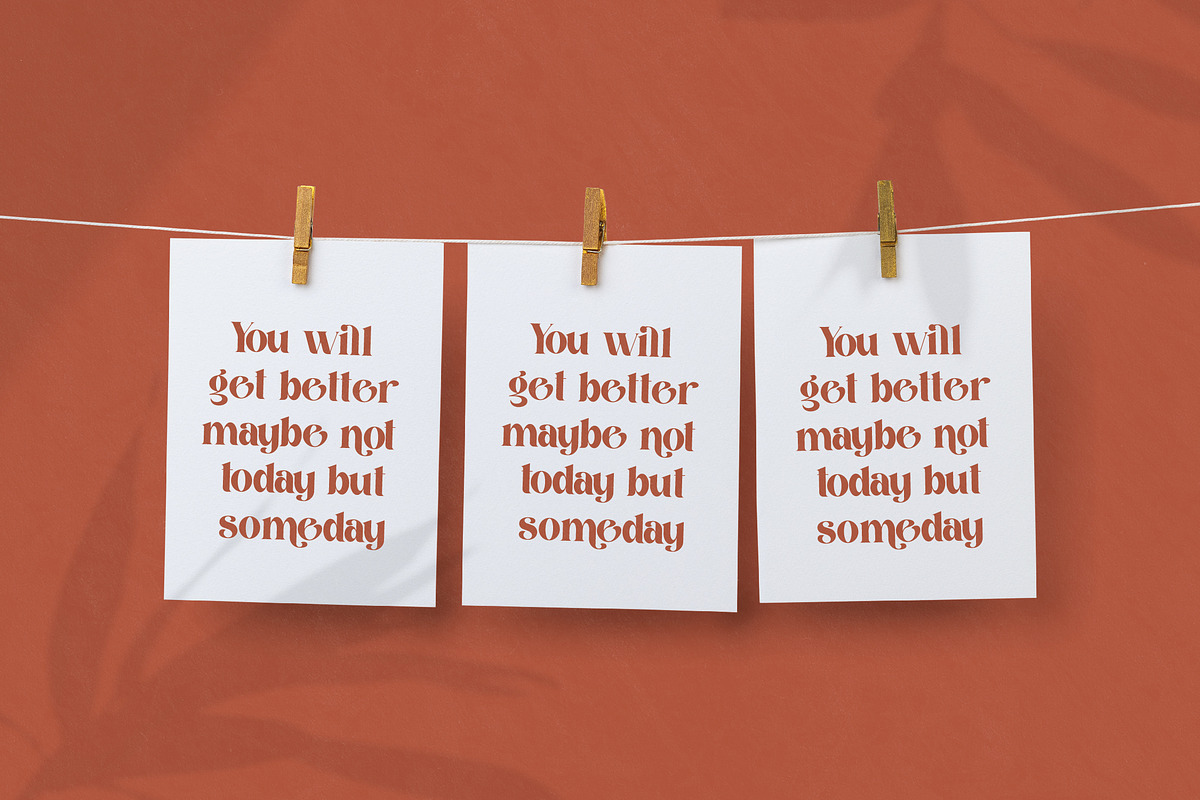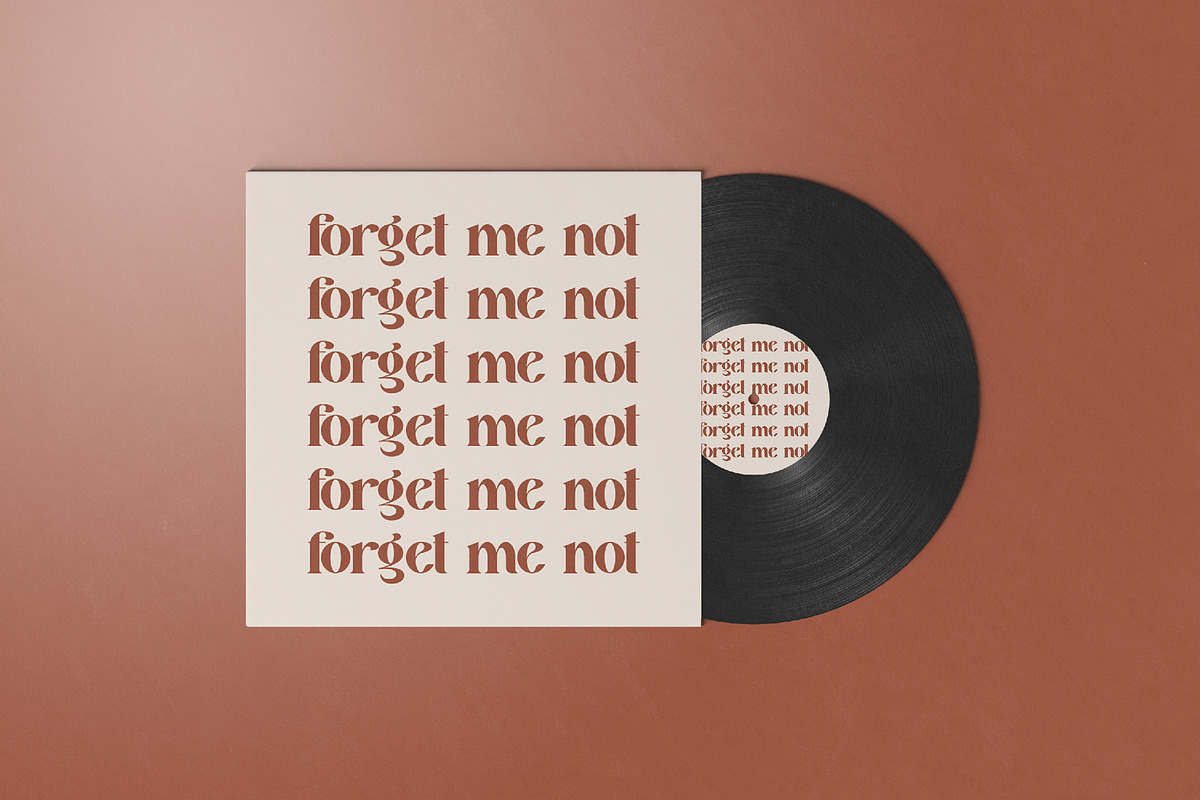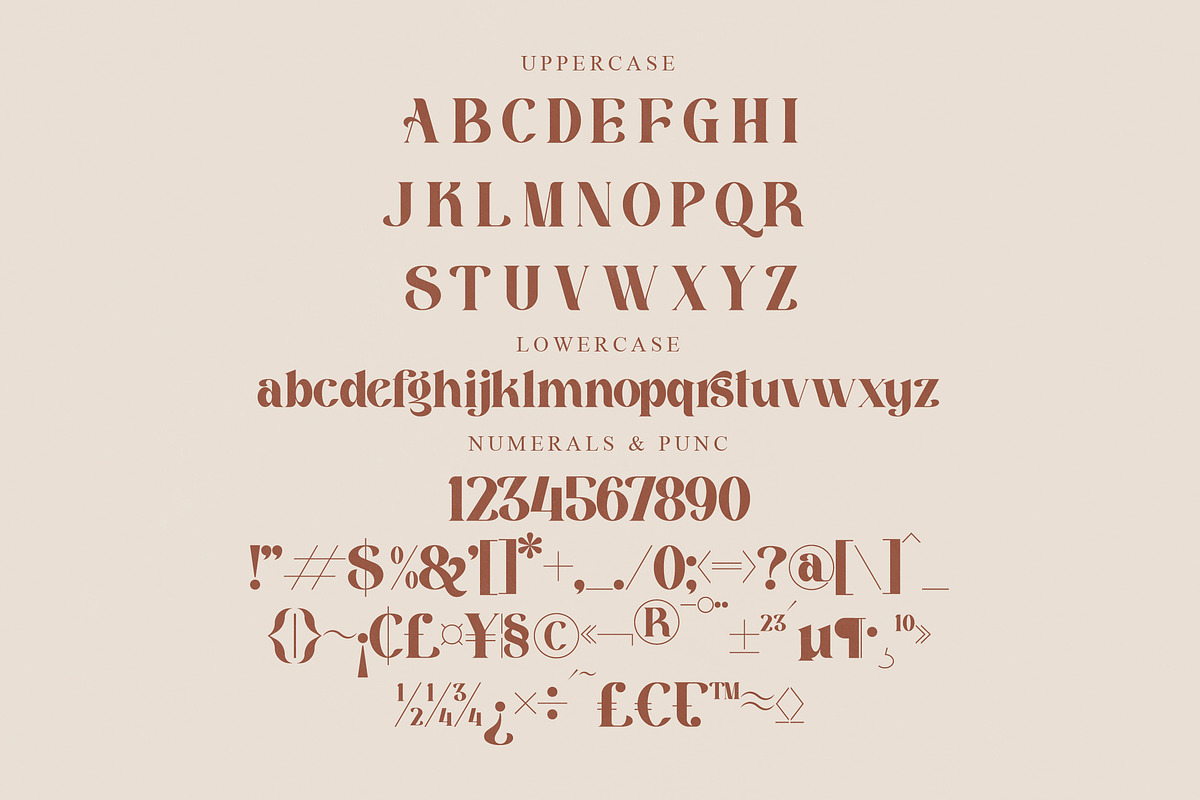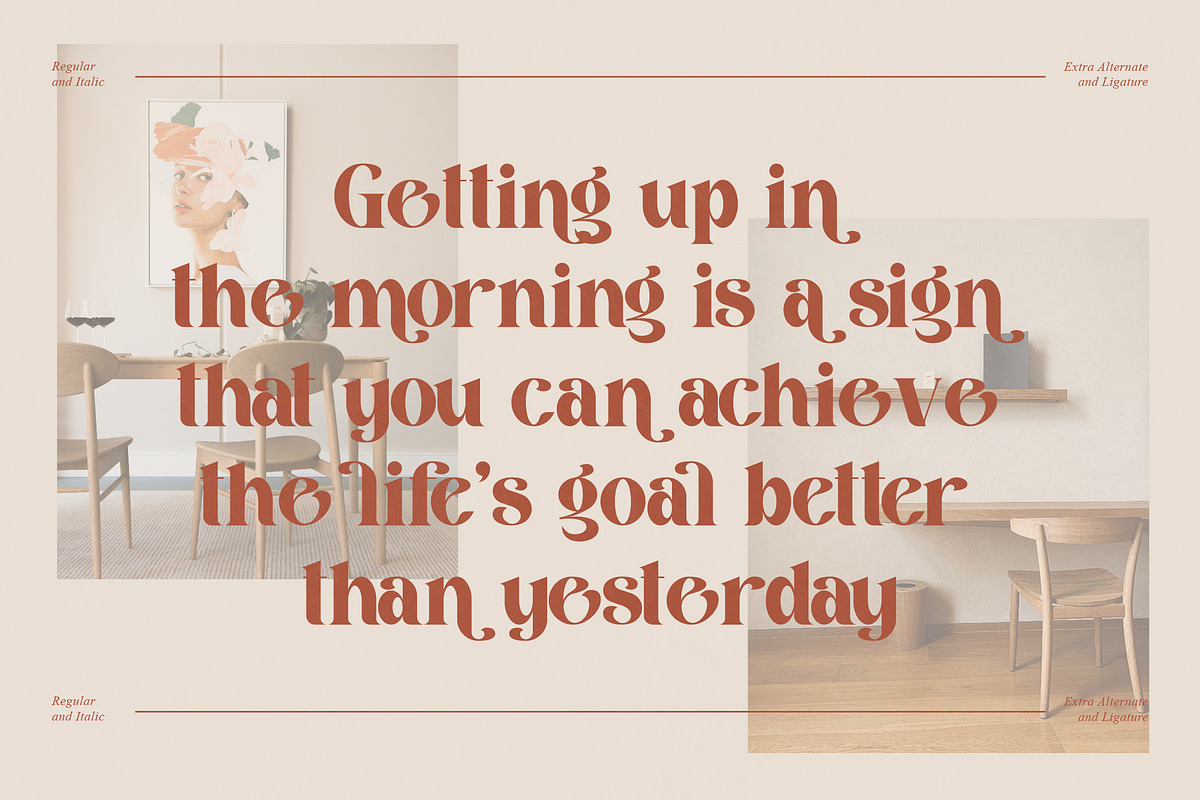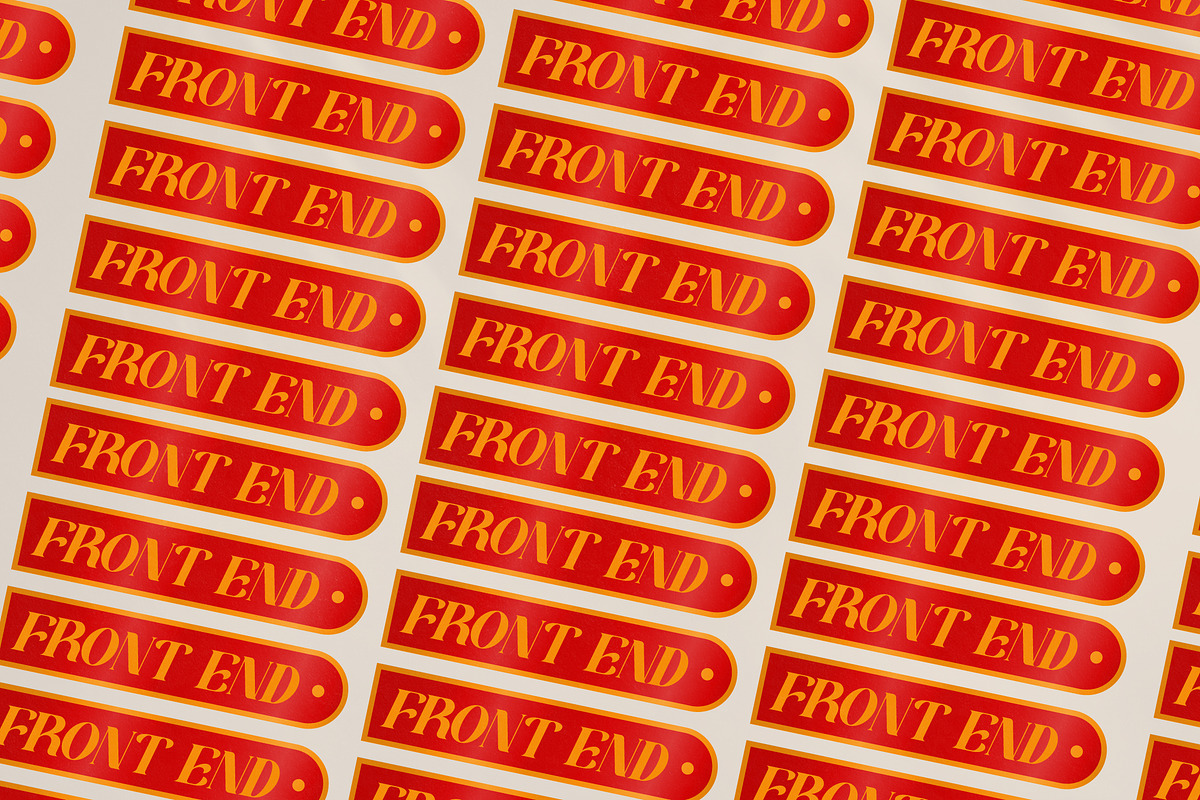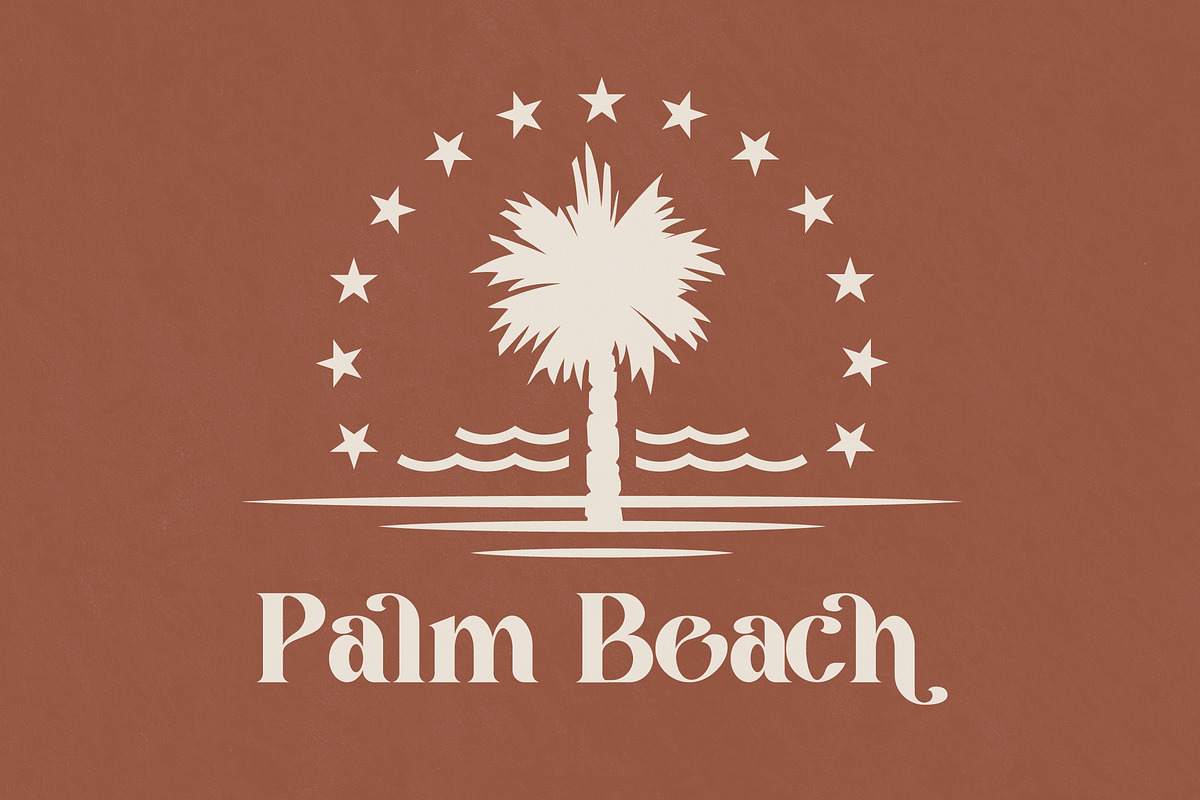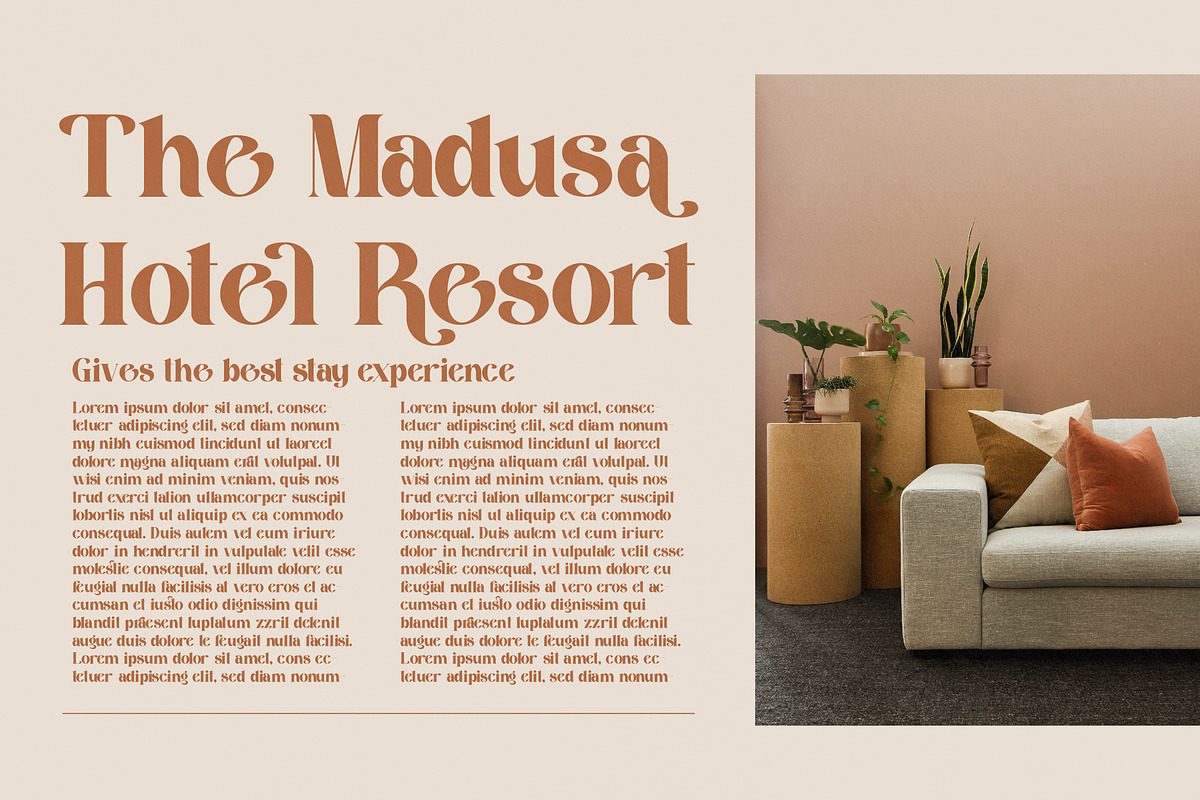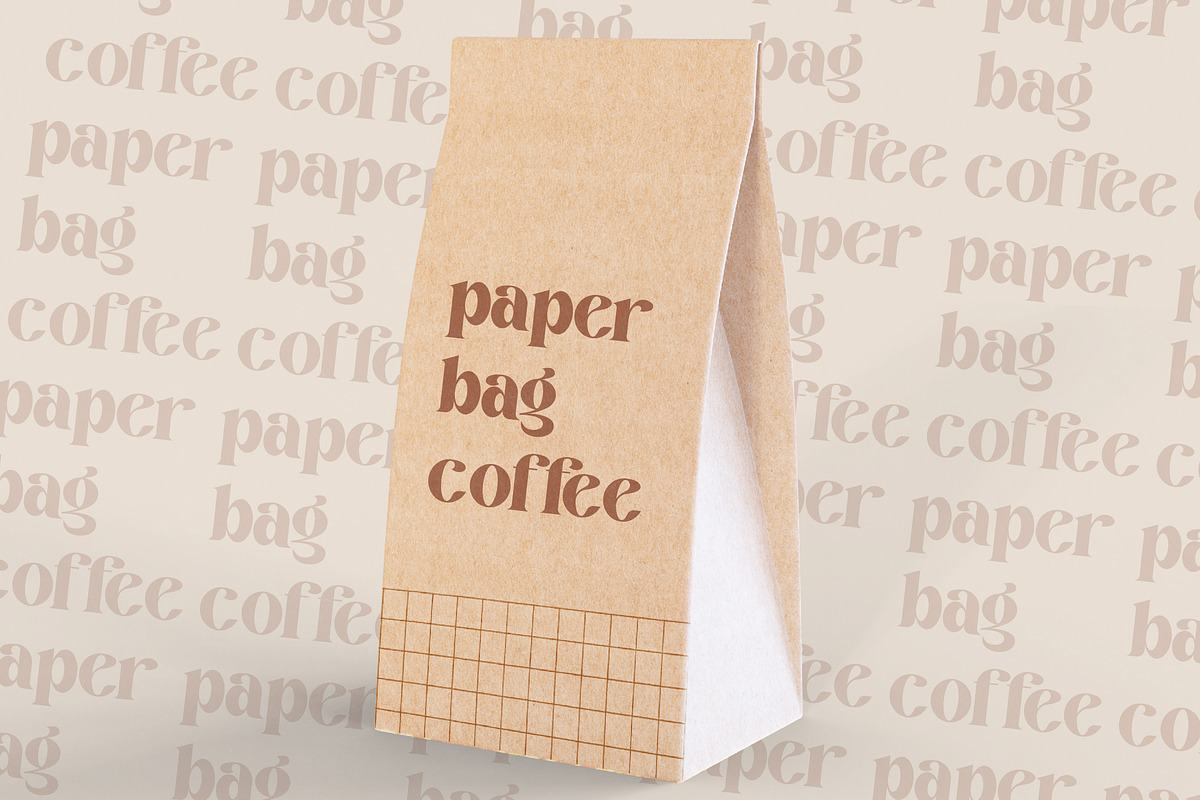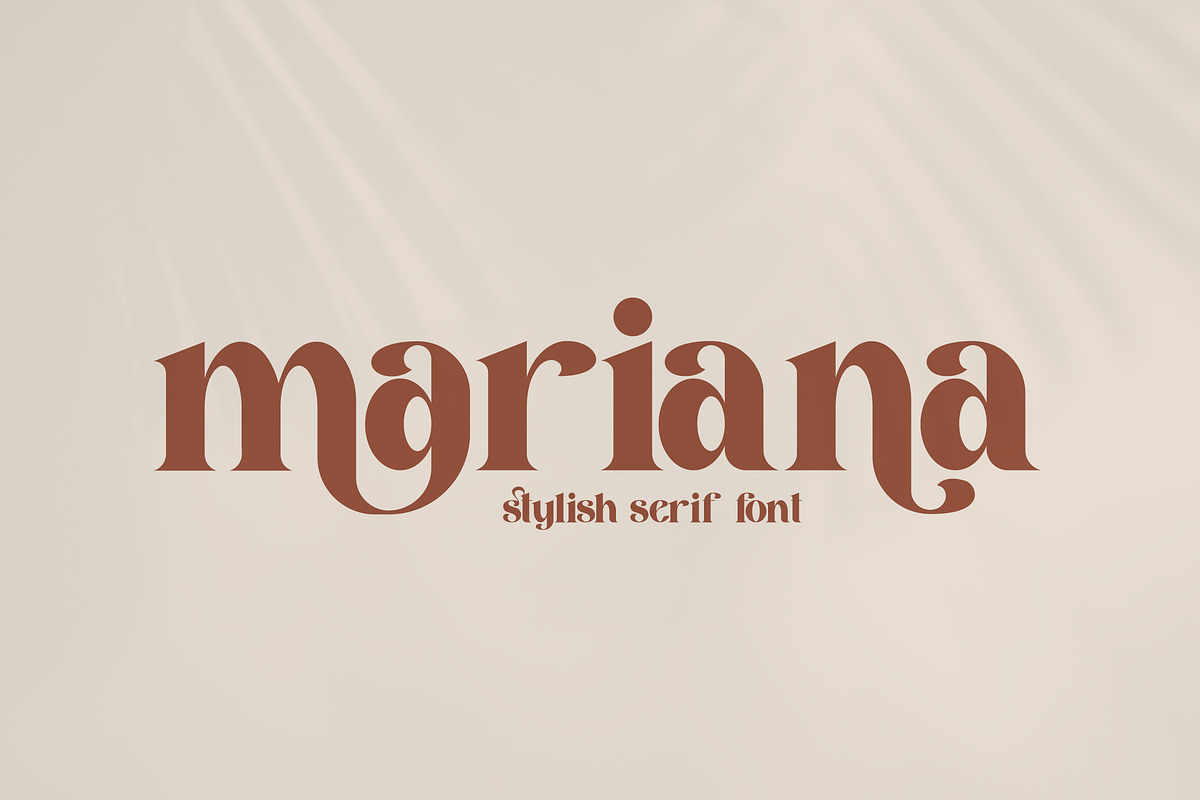
mariana modern & stylish serif font
Proudly present mariana Typeface, created by Storytype, A serif modern and classic typeface that has own unique style & modern look. This typeface is perfect for an elegant & luxury logo, book or movie title design, fashion brand, magazine, clothes, lettering, quotes, and so much more.